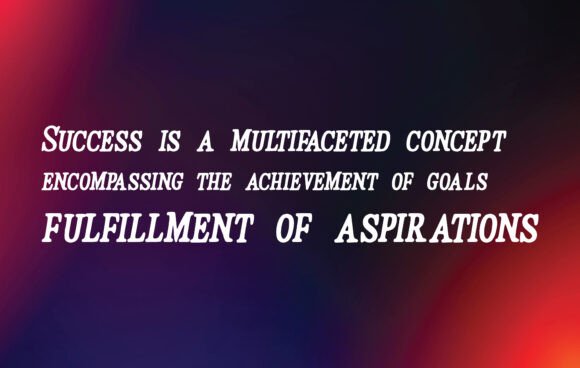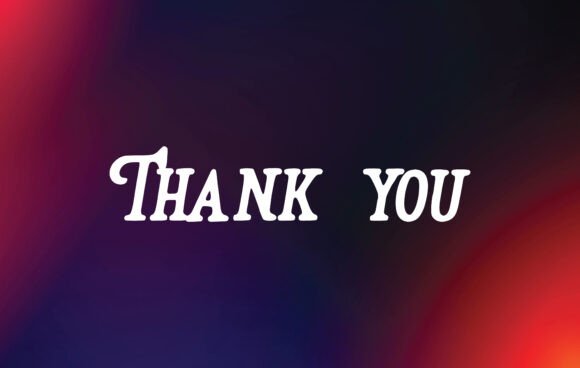
Introducing Casey Font: Elevate Your Creative Projects with Elegance
Are you a designer, craftivist, or creative enthusiast looking for a font that can take your projects to the next level? Look no further than the Casey Font. This lovely and beautiful font is designed to help you create stunning visual content that captures the attention of your audience. With its unique and elegant style, Casey Font is the perfect choice for creating eye-catching logos, branding, and quotes that leave a lasting impression.
The Versatility of Casey Font
One of the standout features of Casey Font is its versatility. This font is designed to work seamlessly across a wide range of creative projects, from branding and advertising to crafting and DIY tutorials. Whether you’re creating a logo for a new business, designing a social media graphic, or crafting a handmade card, Casey Font is the perfect choice. Its elegant and sophisticated style ensures that your project will look professional and polished, while its playful undertones add a touch of whimsy and fun.
Why Choose Casey Font?
So why choose Casey Font over other fonts on the market? Here are just a few reasons why designers and crafters love this beautiful font:
- Elegant and sophisticated style: Casey Font features a unique and elegant style that’s perfect for creating high-end branding and advertising materials.
- Playful undertones: Despite its sophisticated style, Casey Font also has a playful side that’s perfect for adding a touch of whimsy to your projects.
- Highly legible: Casey Font is designed to be highly legible, even at small sizes, making it perfect for use in a wide range of creative projects.
Using Casey Font in Your Creative Projects
So how can you use Casey Font in your creative projects? Here are a few ideas to get you started:
- Logo design: Use Casey Font to create a stunning logo for your business or brand.
- Branding and advertising: Casey Font is perfect for use in branding and advertising materials, from brochures and flyers to social media graphics and billboards.
- Quote graphics: Create inspiring and motivational quote graphics using Casey Font.
- Crafting and DIY projects: Use Casey Font to add a touch of elegance and sophistication to your crafting and DIY projects, from handmade cards to woodworking projects.
Tips for Getting the Most Out of Casey Font
Here are a few tips for getting the most out of Casey Font:
- Experiment with different colors and textures: Casey Font looks great in a wide range of colors and textures, so don’t be afraid to experiment and find the combination that works best for your project.
- Use it in combination with other fonts: Casey Font pairs well with a wide range of other fonts, so try using it in combination with other fonts to create a unique and eye-catching look.
- Pay attention to font size and spacing: Make sure to pay attention to font size and spacing when using Casey Font, as this can affect its overall impact and legibility.
In conclusion, Casey Font is a beautiful and versatile font that’s perfect for designers, crafters, and creative enthusiasts. Its elegant and sophisticated style, combined with its playful undertones, make it the perfect choice for creating eye-catching logos, branding, and quotes. With its high legibility and ease of use, Casey Font is a great addition to any creative project. So why wait? Download Casey Font today and take your creative projects to the next level!